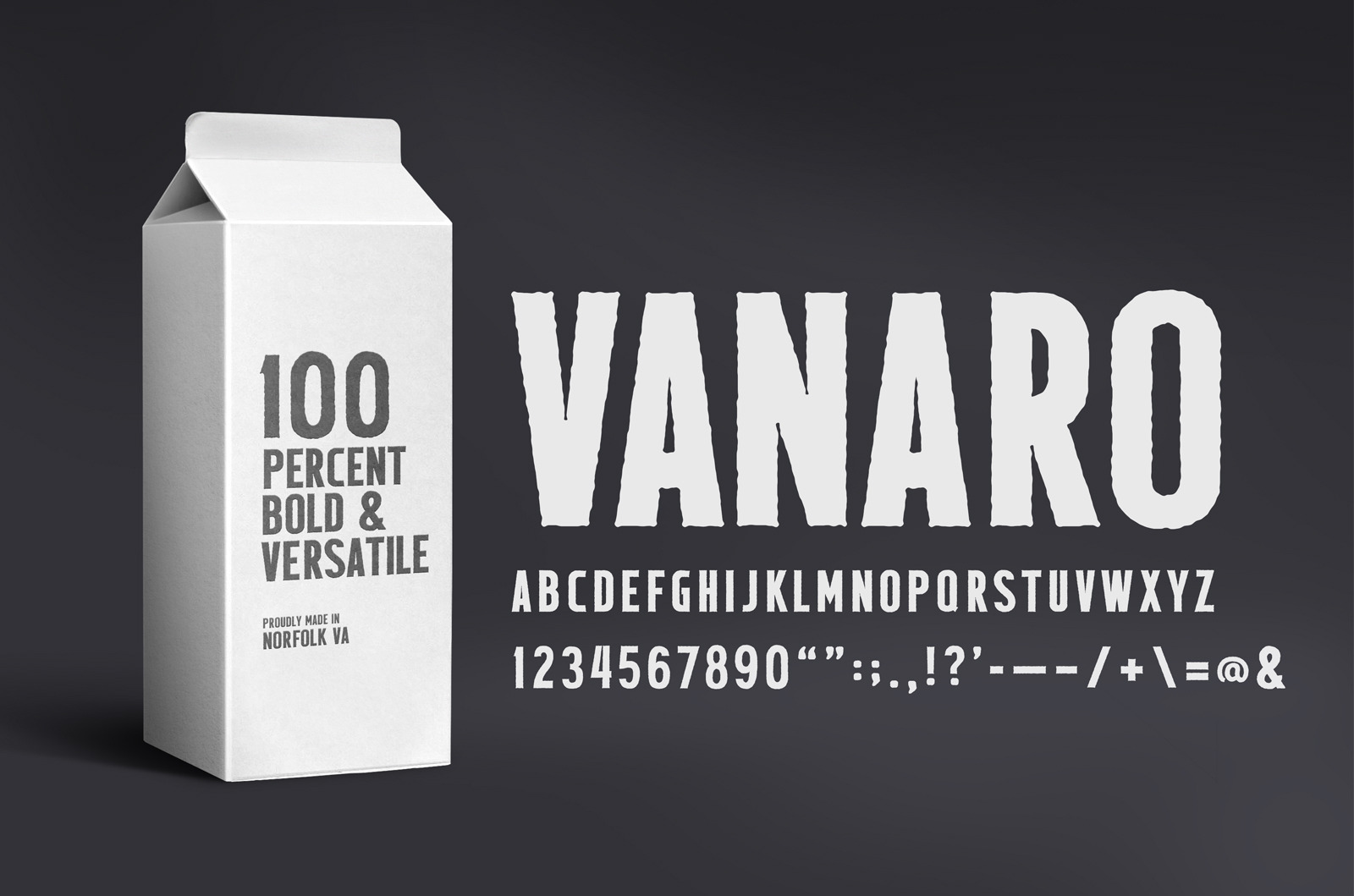
VANARO - Sans Serif Display Font
Thick & Bold Sans Serif Display Font - VANARO
VANARO is a Sans Serif display font designed to bring an organic characteristic to a bold type. Perfect for a wide range of projects. 100% bold and versatile. OTF goodness!
Thick & Bold Display Font - VANARO